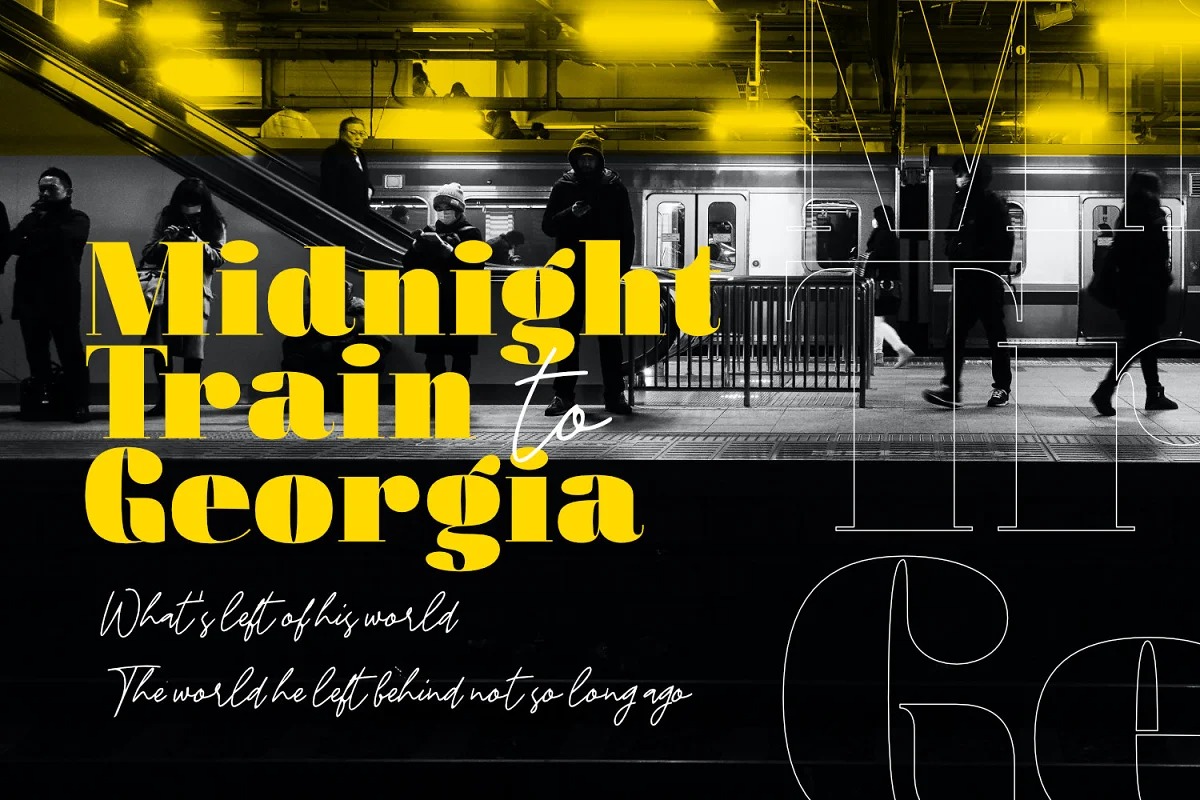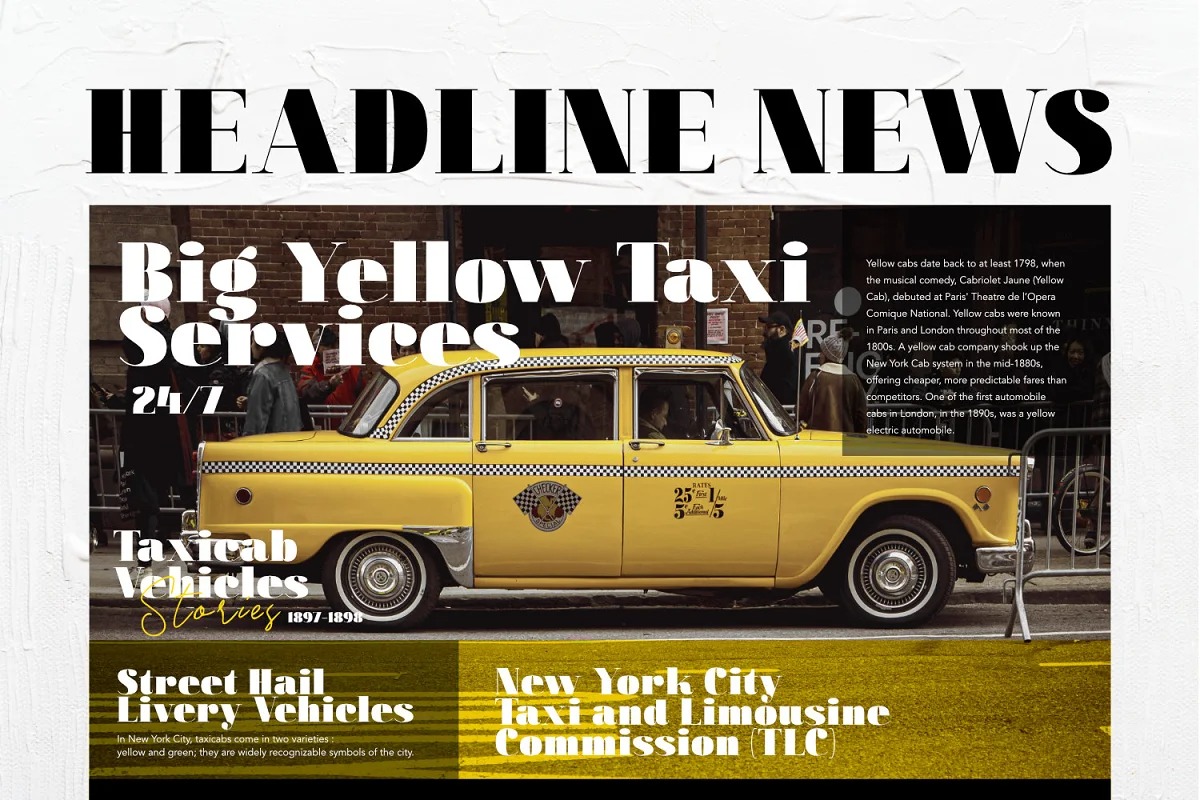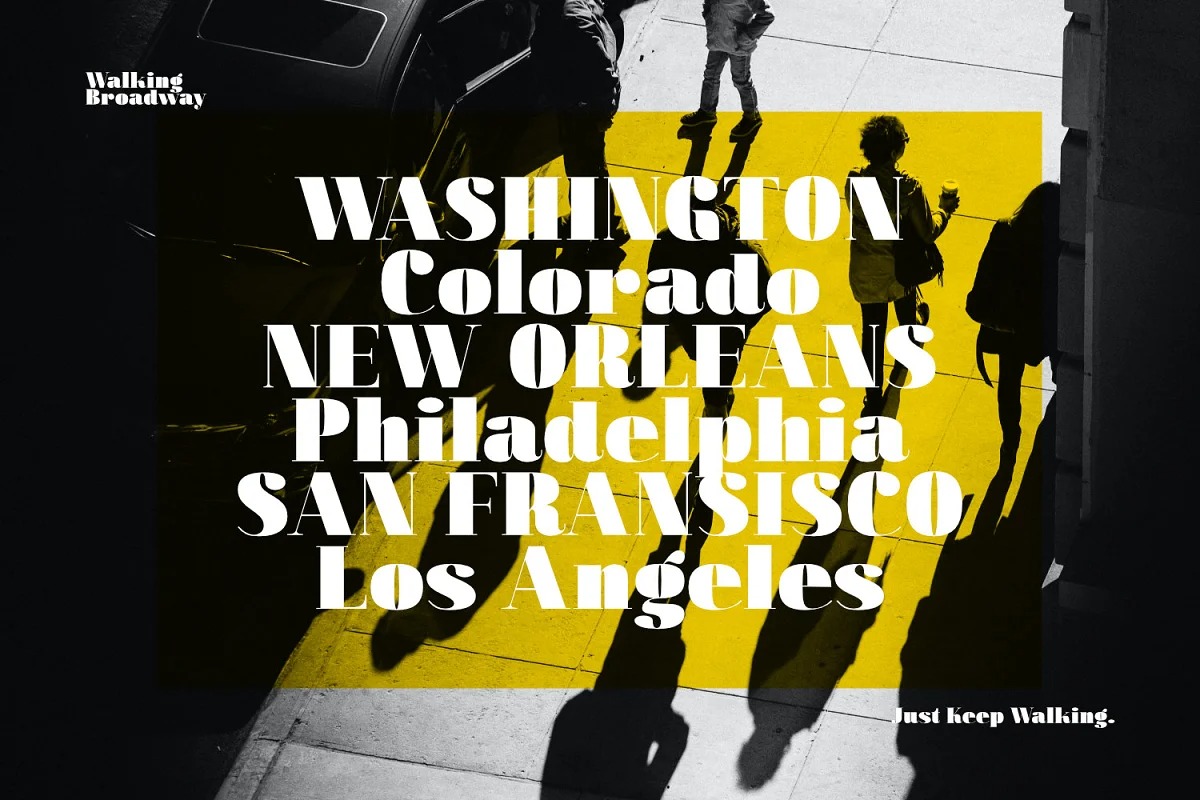
Walking Broadway Font
Walking Broadway Serif Font is modern serif typeface created by ikiiko with fresh and beautiful look. It has modern and vintage look. Walking Broadway has a distinctive bold to light contrast shape. A style commonly used in movie, magazines, and signage in that era. This typeface is perfect for an formal layout, old movie poster, newspaper, magazine cover, and also good for vintage product, food & beverages, quotes, or simply as a stylish text overlay to any background image.